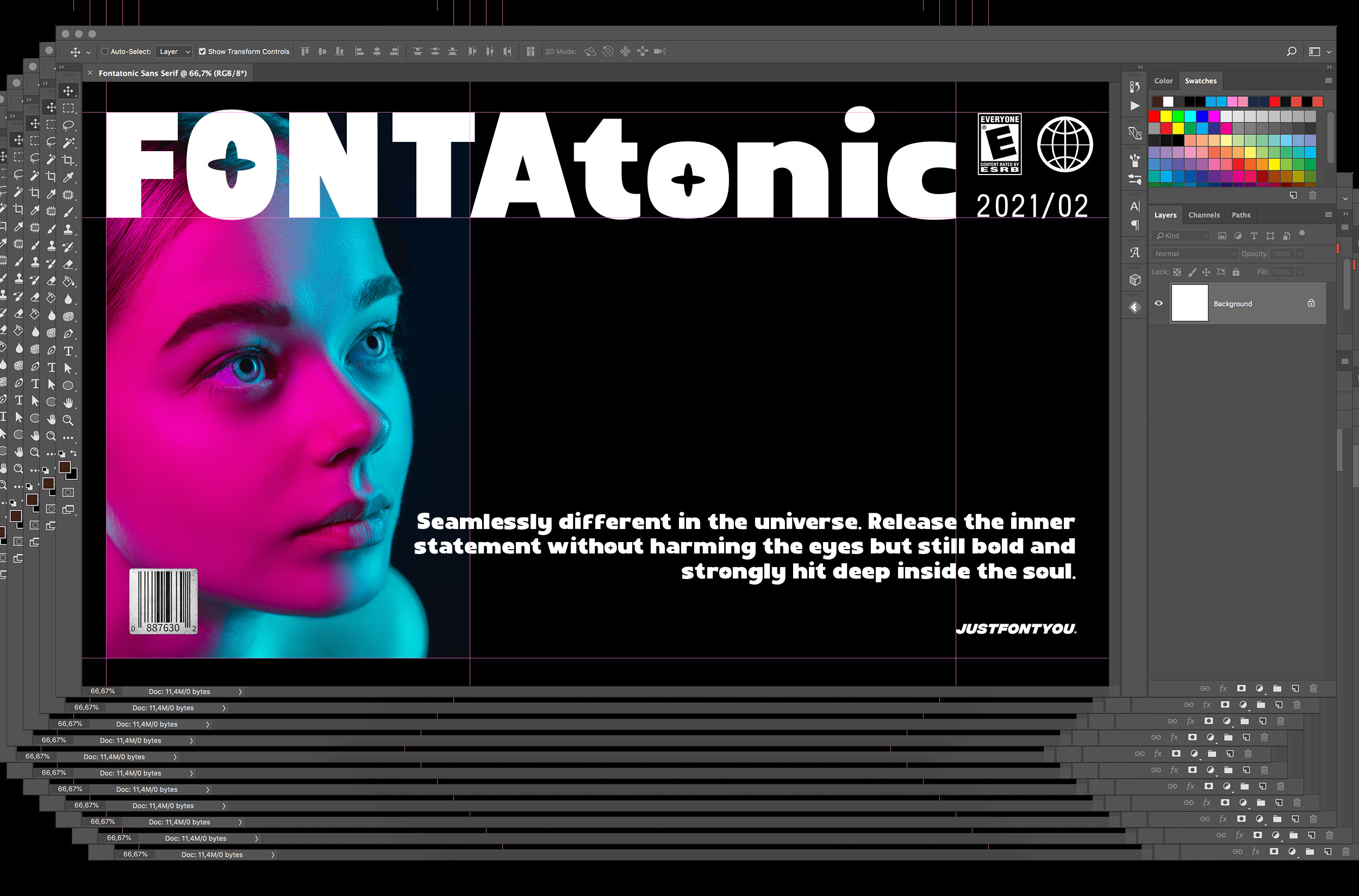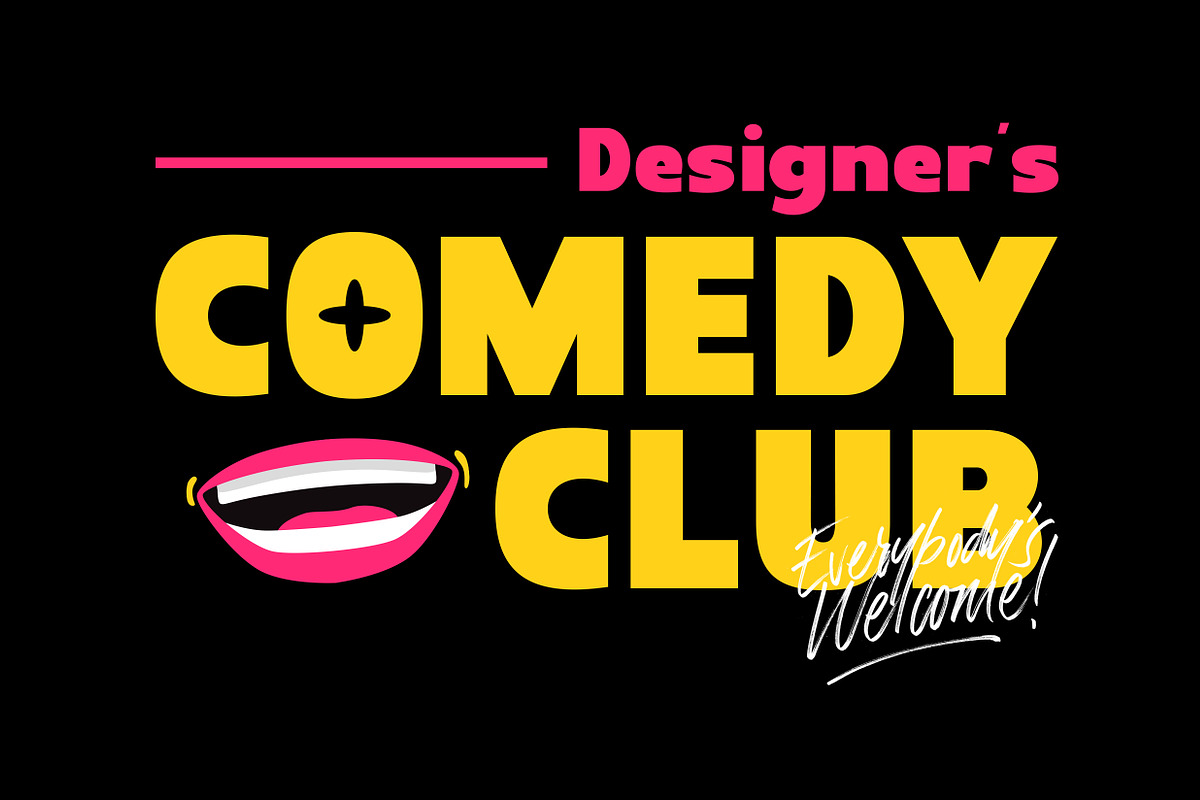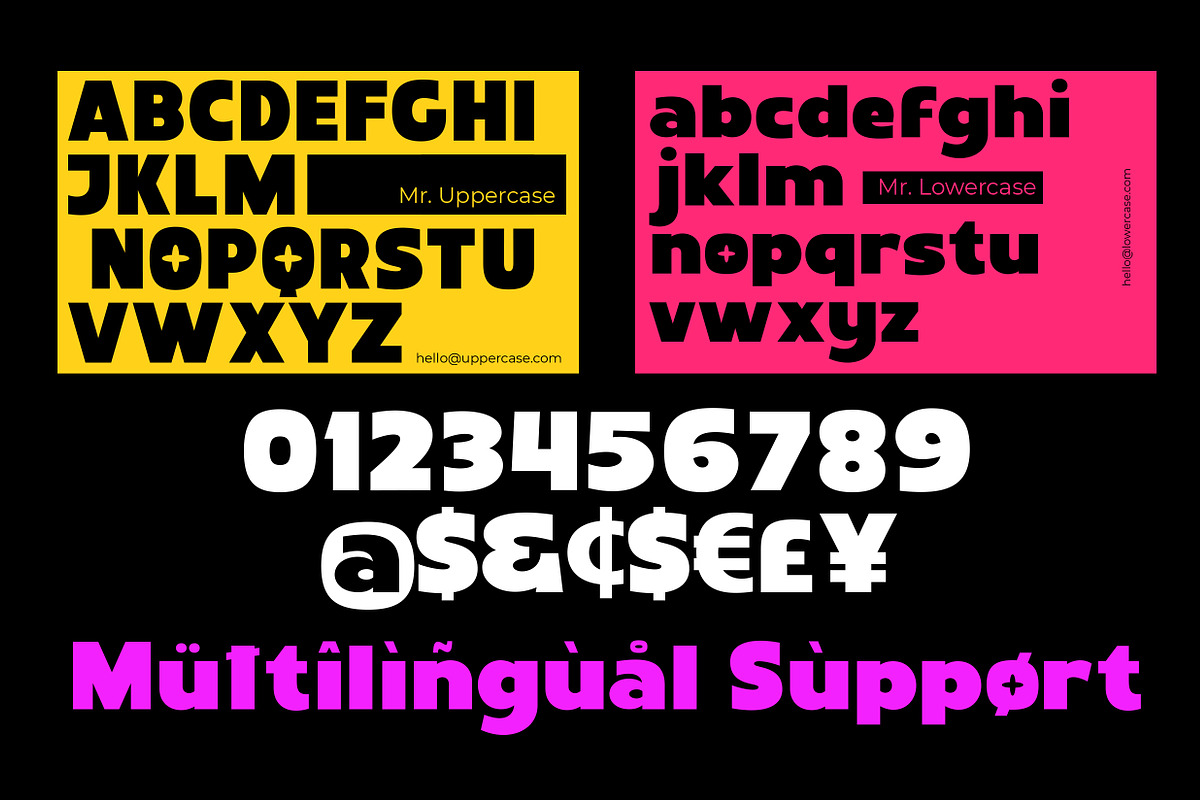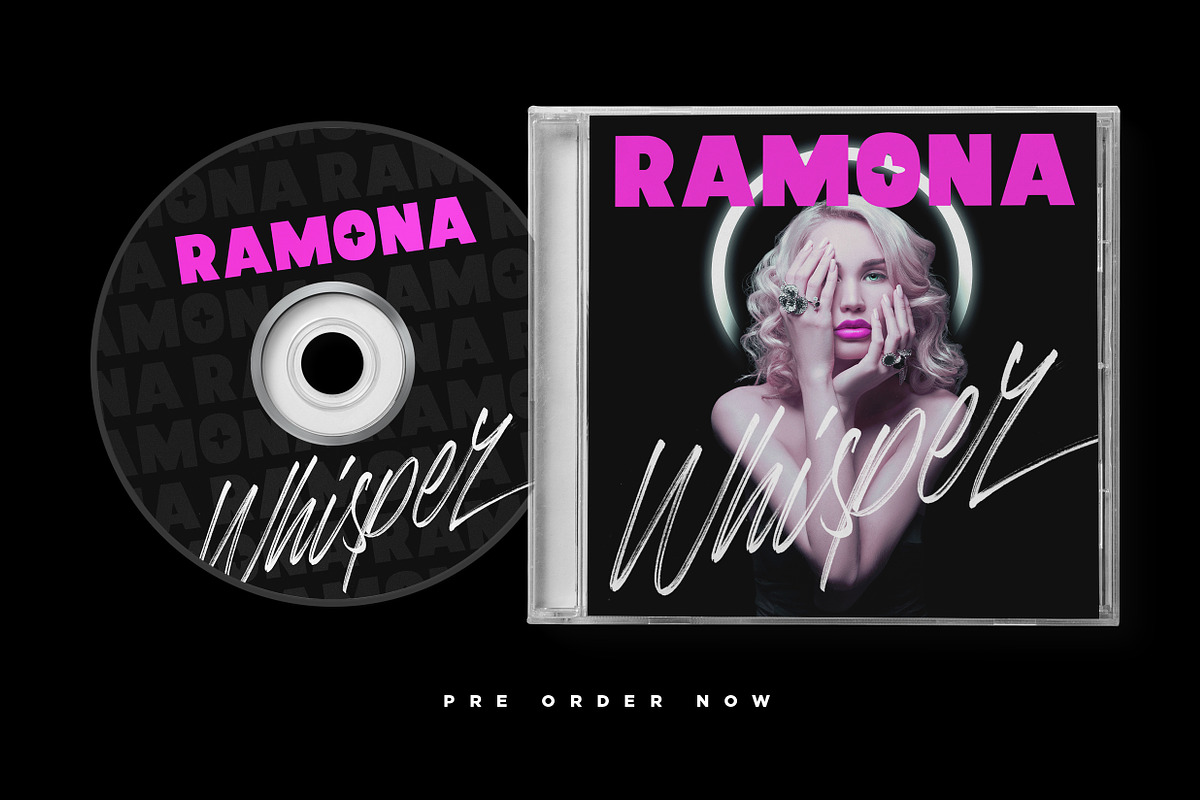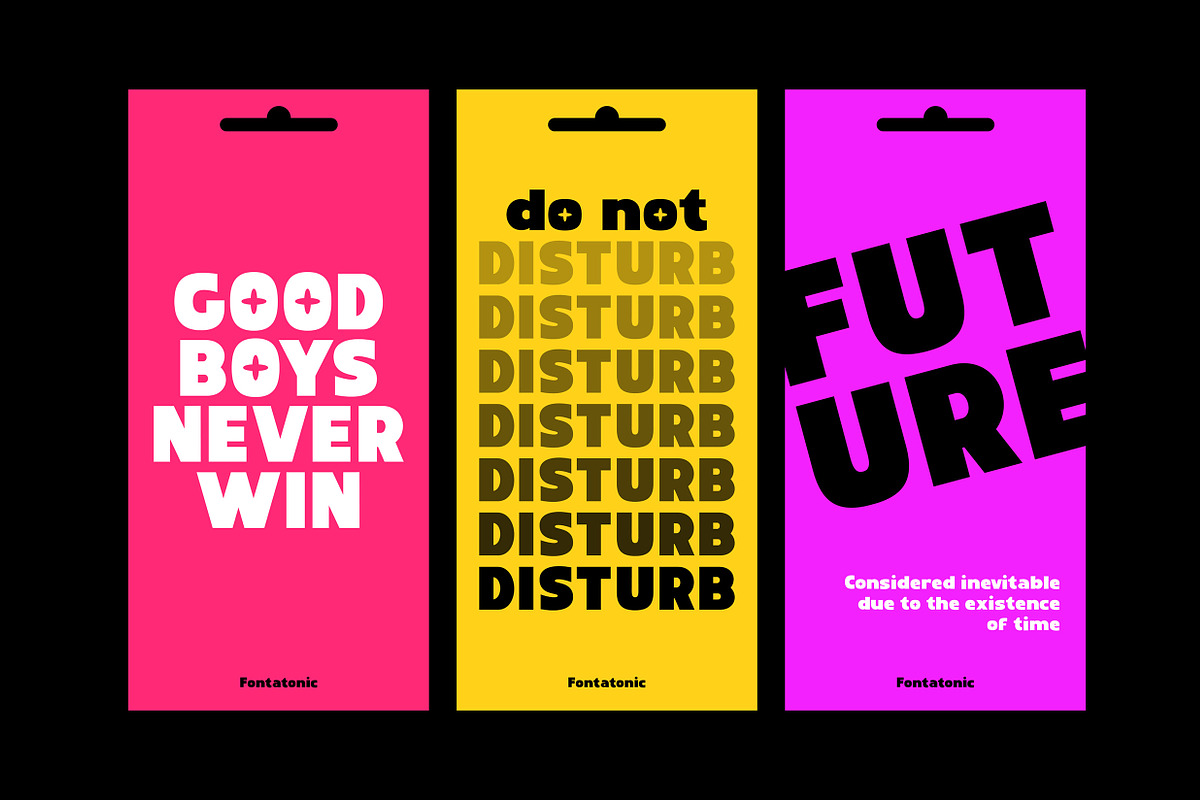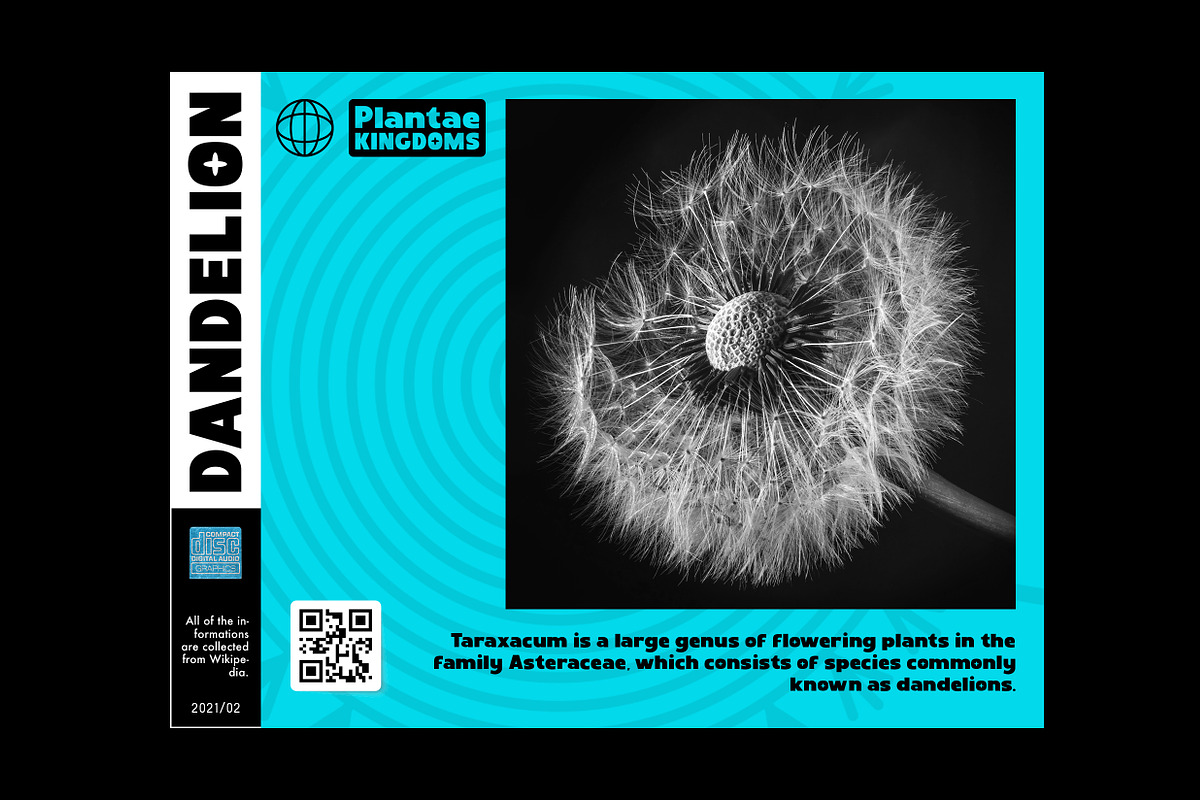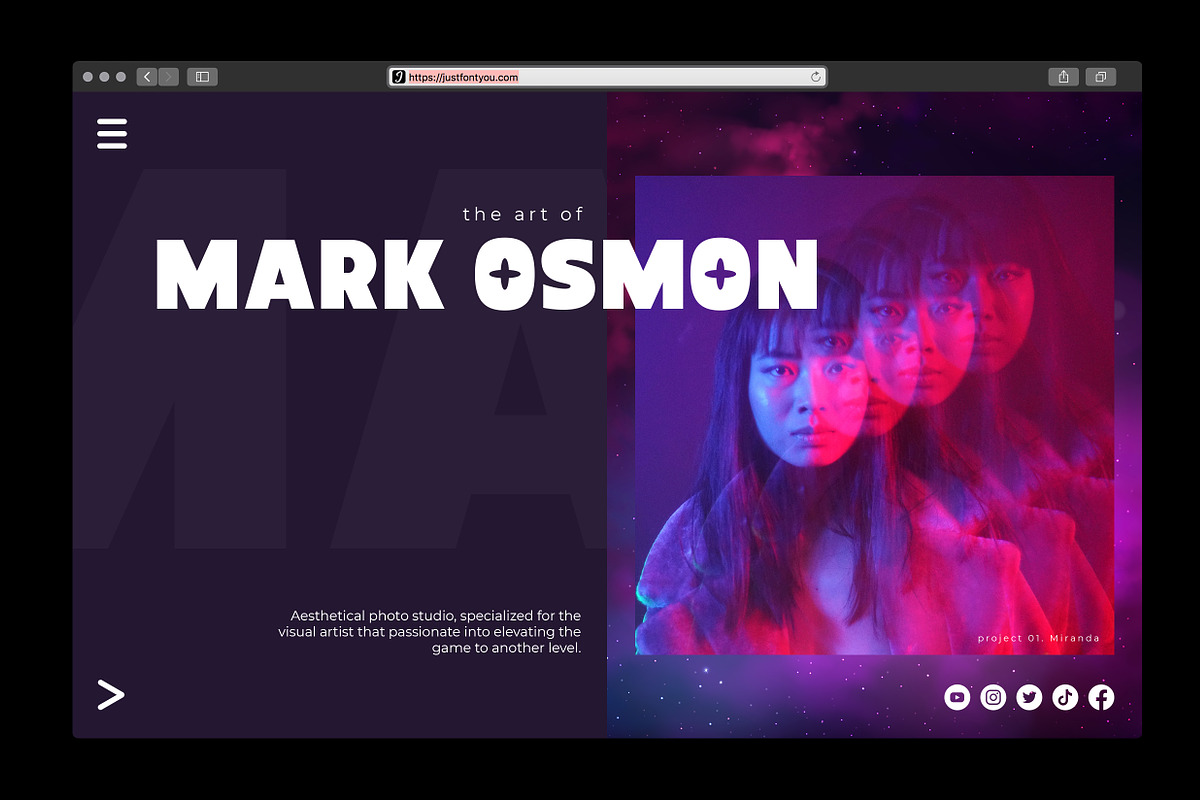
Fontatonic - Bold Sans Serif Fonts
Release your inner youngster's spirit with Fontatonic Sans. A bold, fun, and casual sans serif crafted with the joyful soul of young generations to elevate and get prepared for the future visuals.
Will be a perfect mate for poster design, brand campaign, logo, header, music project, typographic design, social media content, digital activation, let's embrace the future together.
Language Support: Albanian, Basque, Catalan, Cornish, Croatian, Czech, Danish, Dutch, English, Esperanto, Estonian, Faroese, Finnish Scots, French, Gaelic, Galician, German, Greek Transliterated, Hawaiian, Hungarian, Icelandic, Indonesian, Irish, Italian, Latvian, Lithuanian, Maltese, Nynorsk Bokmal Norwegian, Polish, Portuguese, Romanian, Slovak, Slovenian, Spanish, Swedish, Turkish, Welsh. If you doubt with it please type it out in the text box below, I hope it will support your language too :)